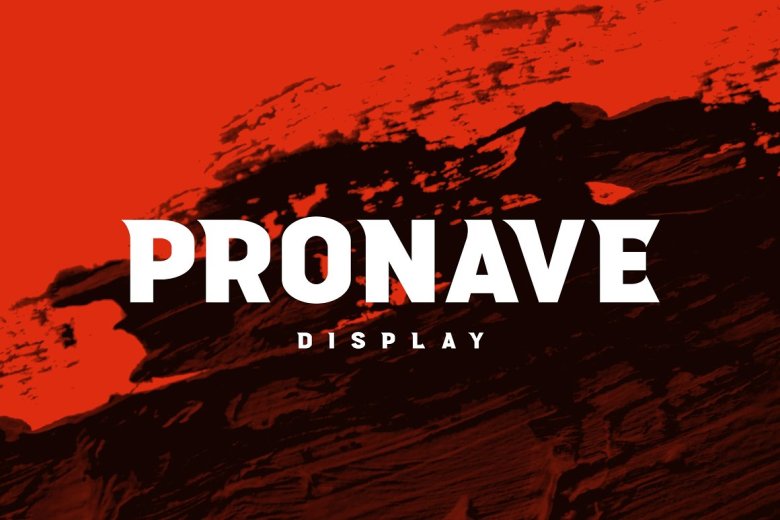
Pronave Font
Pronave Font is an elegant display modern serif with chic characters. It’s designed and shared by Almarkha Type. Very suitable for the title, logo, typography, clothes, magazines, brochures, packaging and much more for your design needs, making your designs more modern and professional.
Pronave Display Font